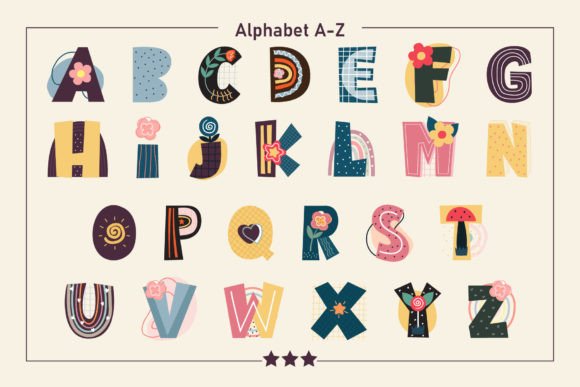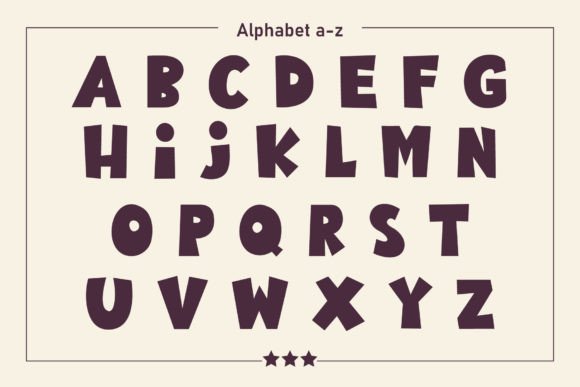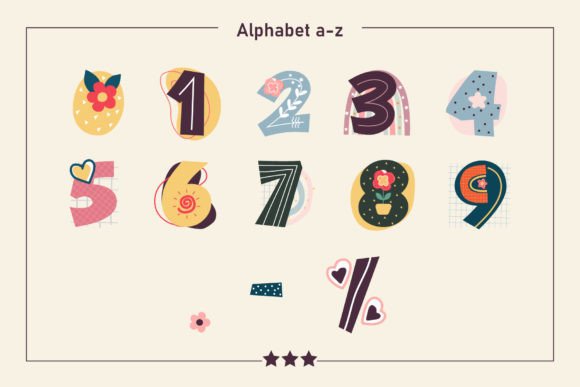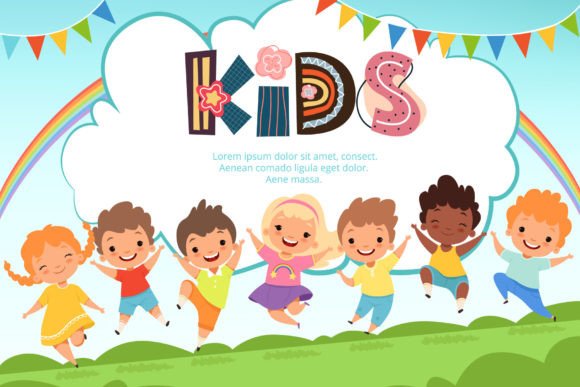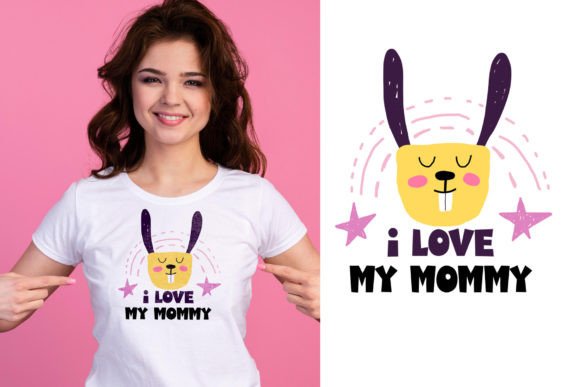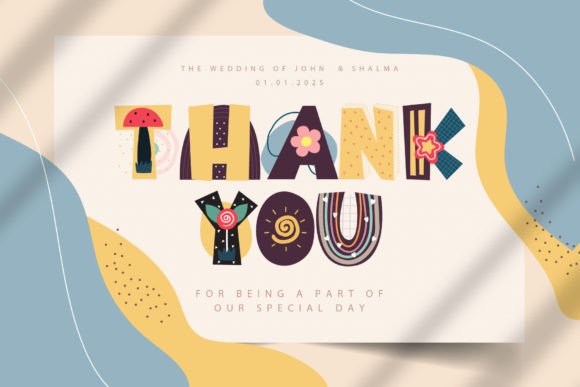
The Cute Freya Font: A Stylish and Fun Addition to Your Design Toolkit
Have you ever been working on a design project, and suddenly, it all comes down to finding the perfect font? I recall a recent experience where I was creating a custom invitation for a friend’s birthday party. The design was almost complete, but something was missing – a font that would tie everything together. That’s when I stumbled upon the Cute Freya font, and it instantly fell into place. In this article, we’ll dive into what makes this font special, its features, and how you can make the most of it in your designs.
First Impressions: A Personal Review
What I Love About Cute Freya ✨
- ✅ Authentic Feel: Cute Freya has a unique, hand-crafted feel that adds a personal touch to any design.
- ✅ Versatility: It’s perfect for a wide range of projects, from invitations and greeting cards to social media posts and stationery art.
- ✅ Color Font: Being a color font (Opentype-SVG), it offers a vibrant and modern look that’s sure to grab attention.
- ✅ Ease of Use: Despite being a bit more complex due to its color and OpenType features, Cute Freya is surprisingly easy to work with, especially if you’re familiar with design software.
While Cute Freya is an amazing font, there are a few things to keep in mind:
The Story Behind Cute Freya: A Designer Inspiration
Cute Freya was inspired by the joy of creating something beautiful and unique. The designer aimed to craft a font that would bring a smile to users’ faces and make their designs stand out. With its colorful and playful vibe, Cute Freya is the perfect tool for anyone looking to add a bit of fun and personality to their work.
Cute Freya is more than just a font – it’s a design companion that can elevate your projects with its stylish, cute, and fun vibe. Whether you’re a designer, crafter, or hobbyist, this color font is sure to inspire and enhance your creative work.